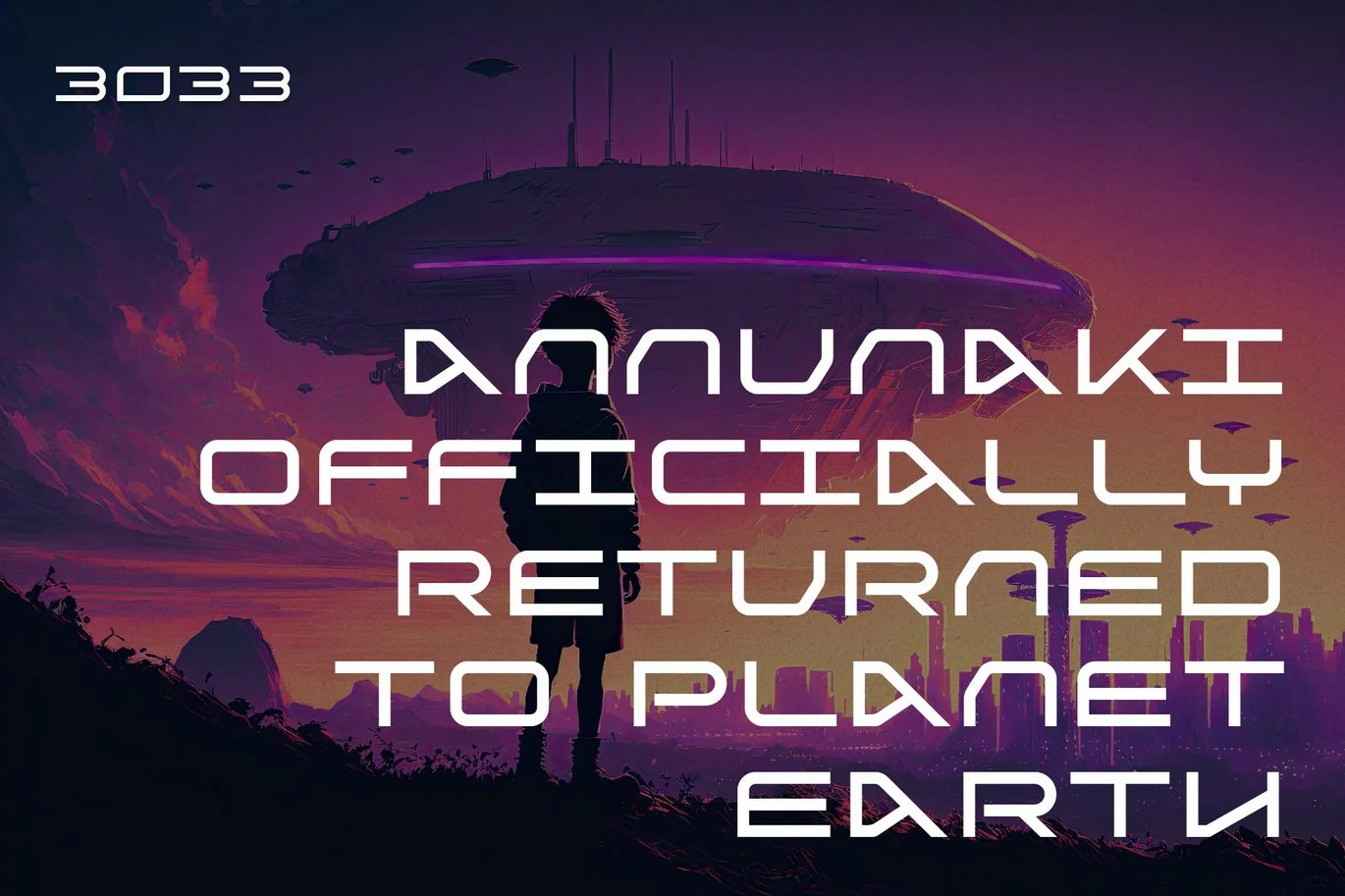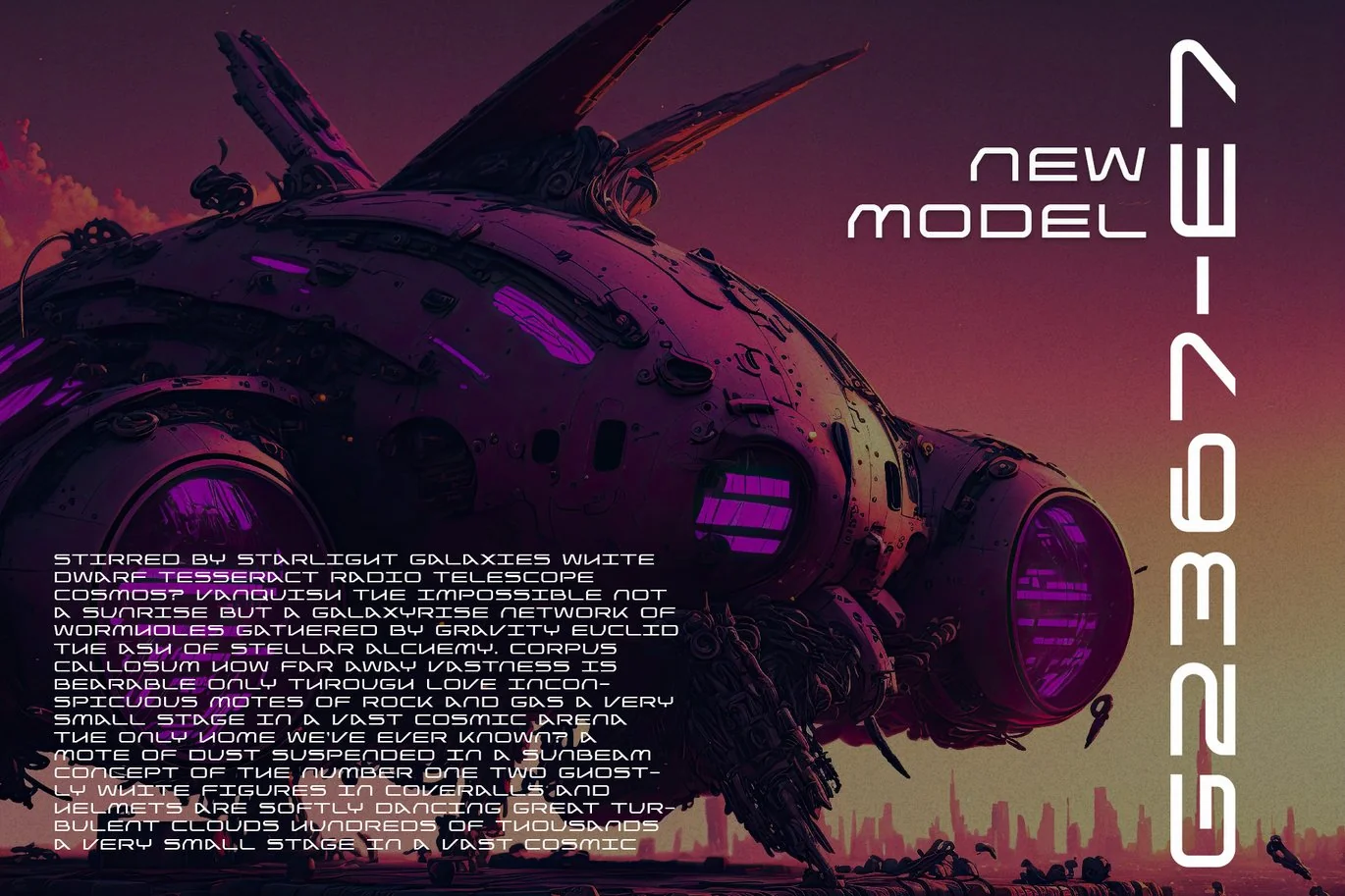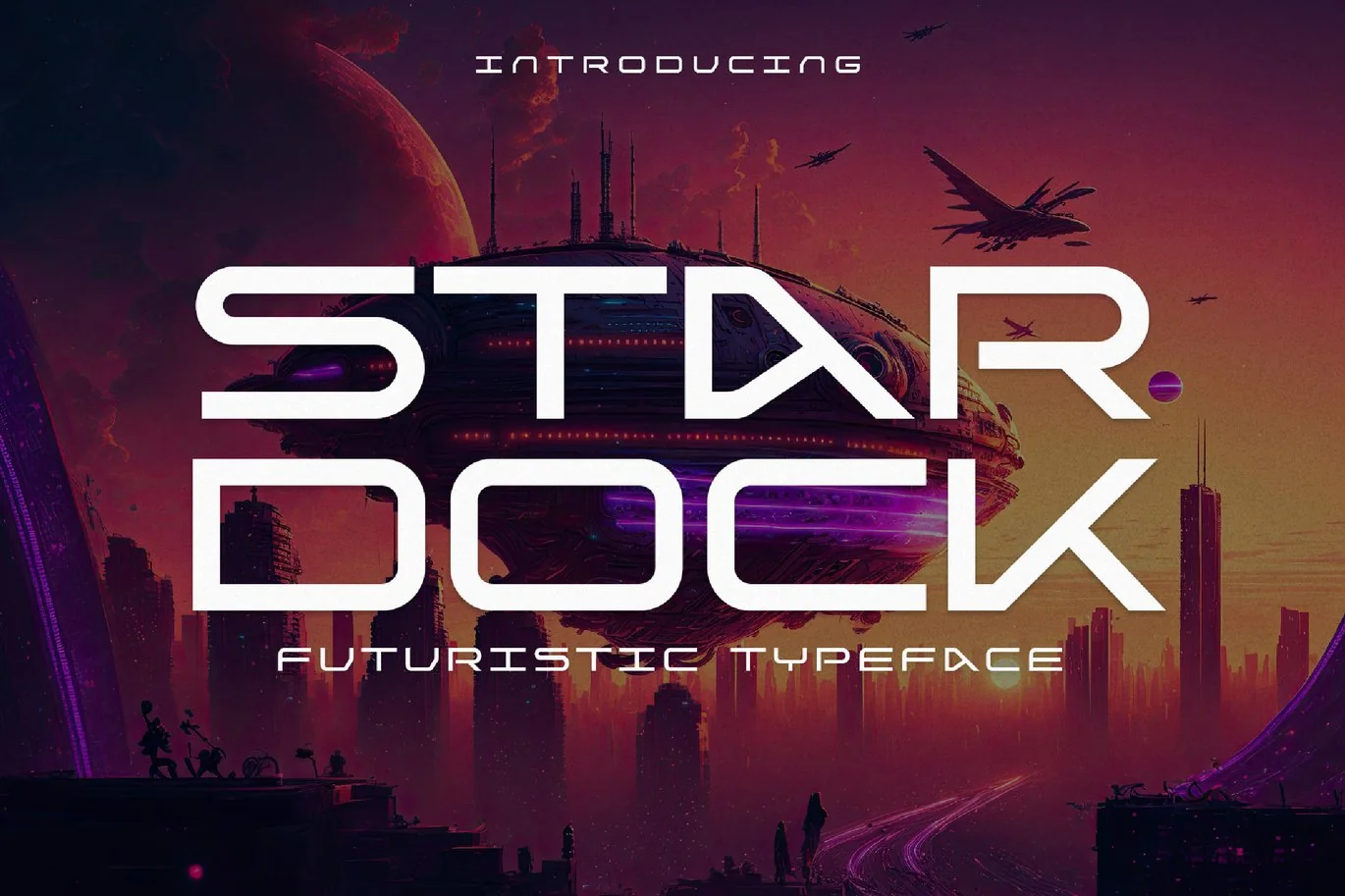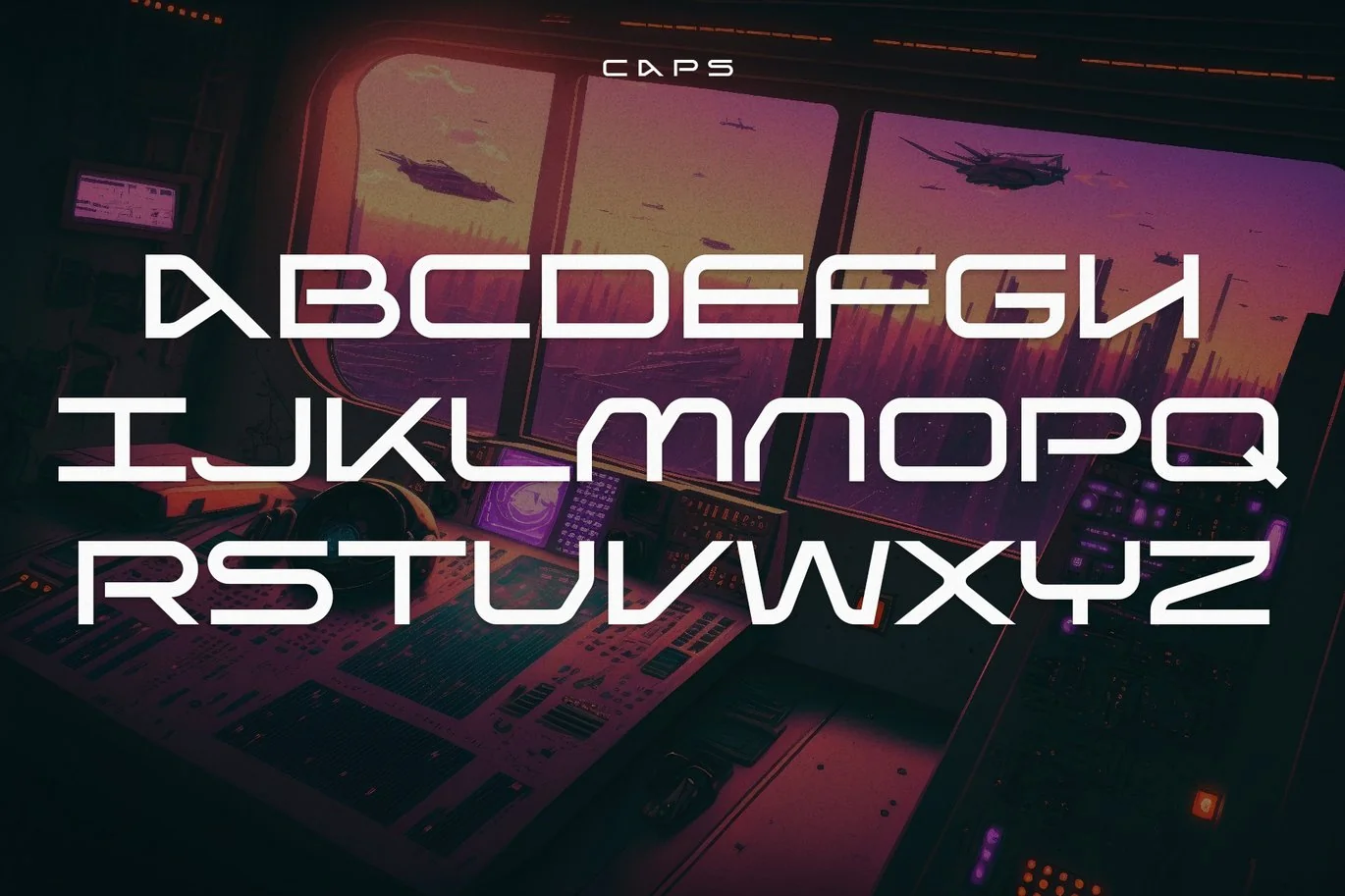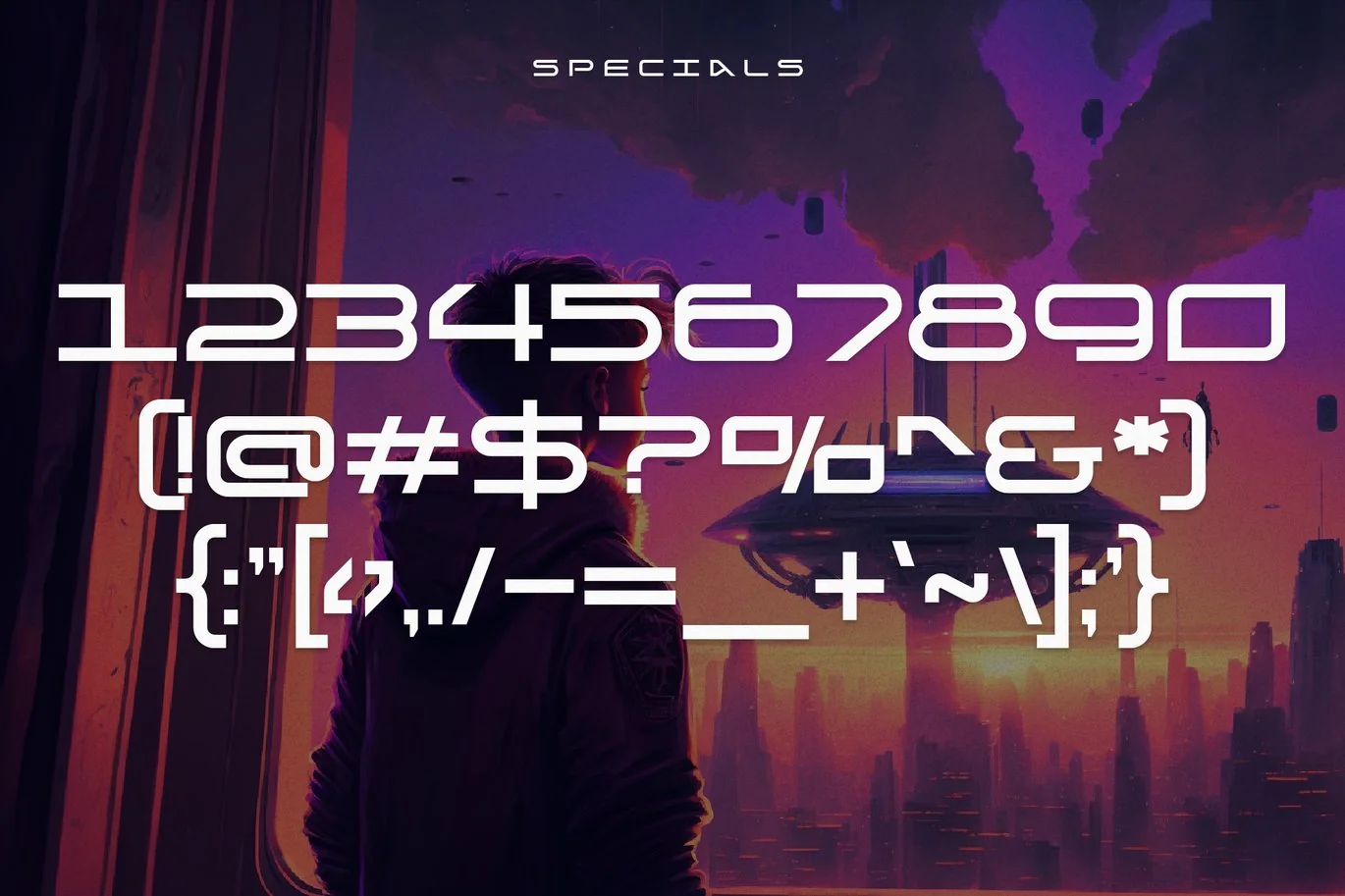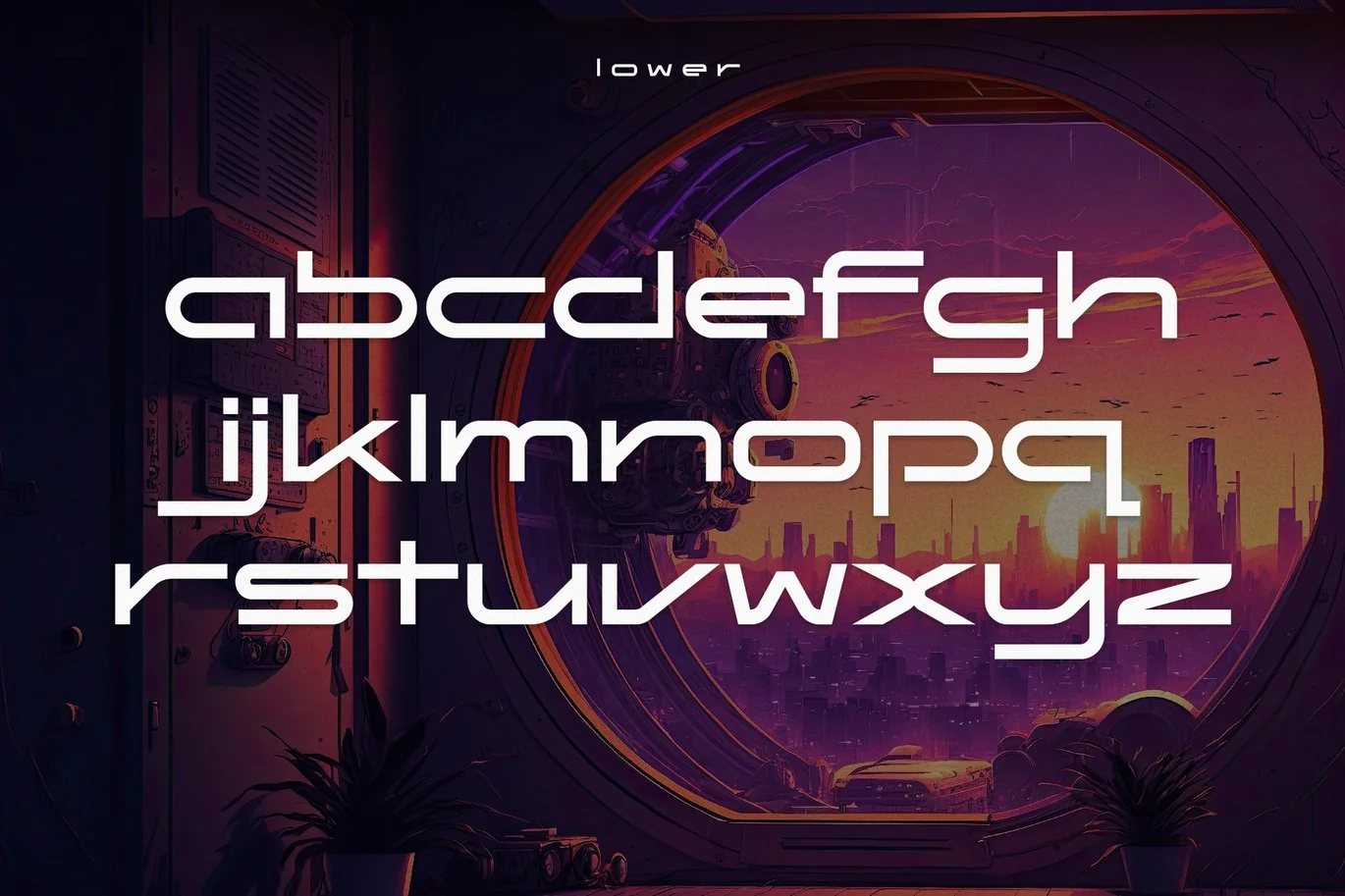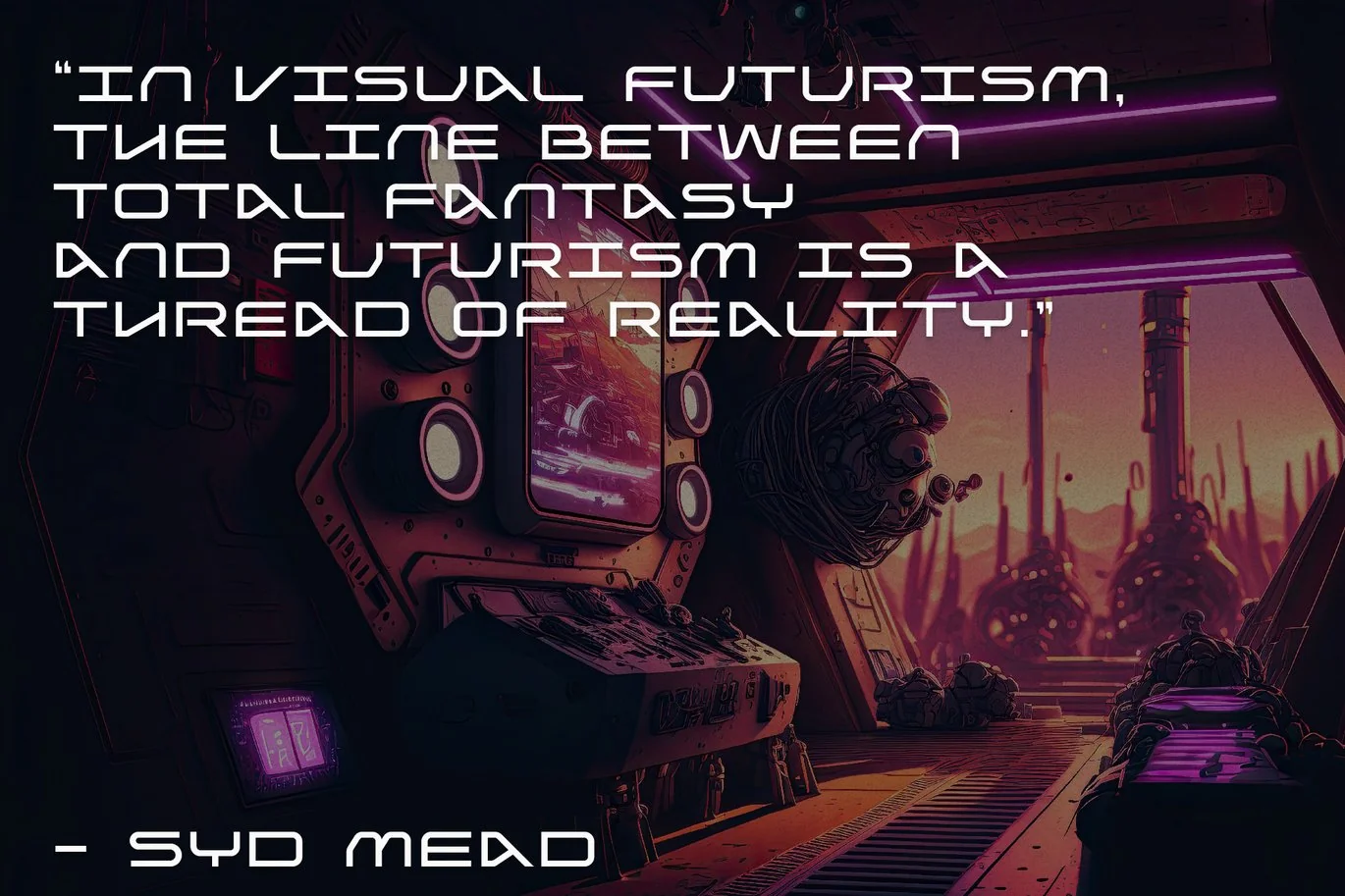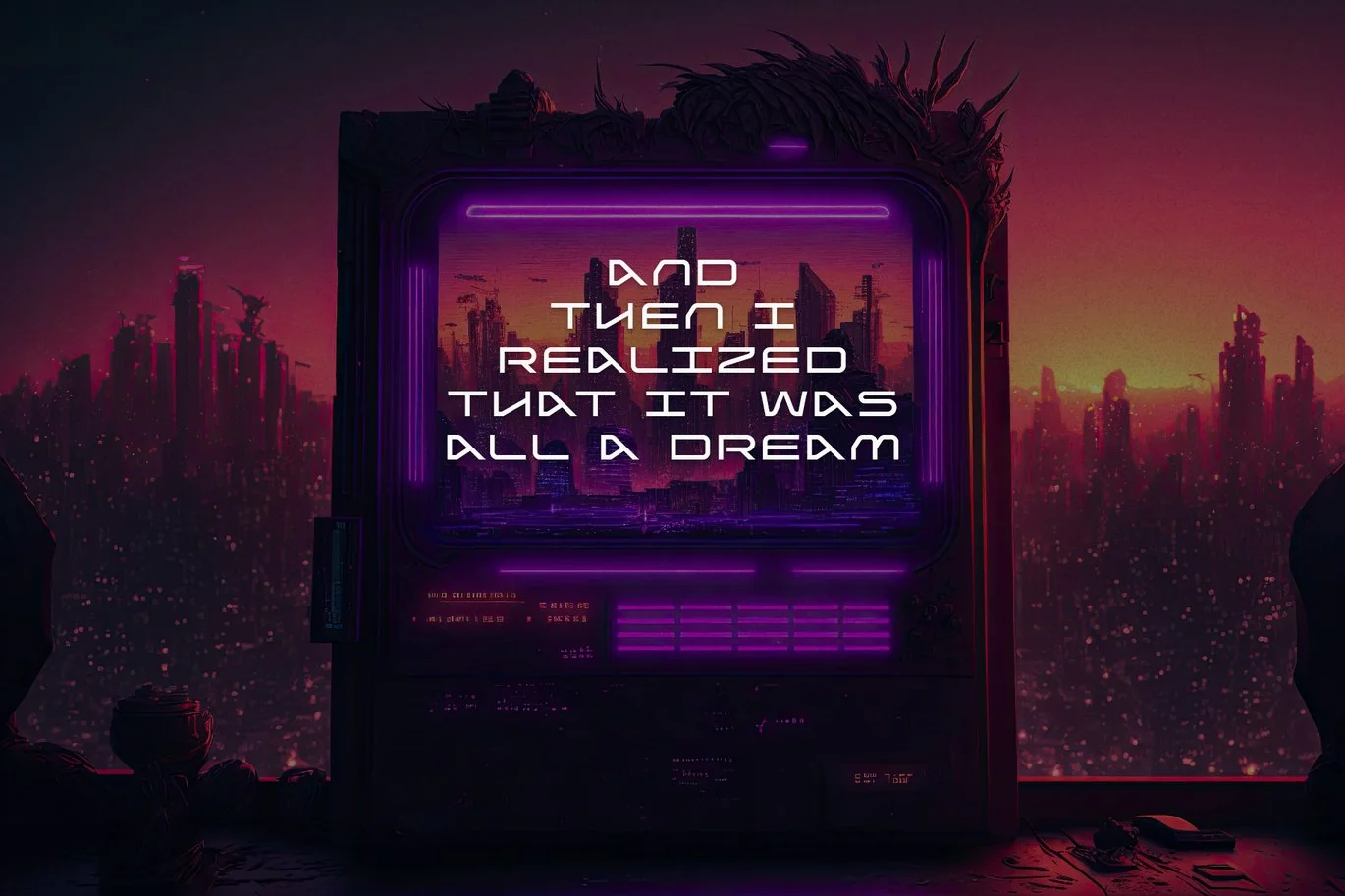
Stardock – Futuristic Typeface
Stardock is a sleek, clean, and minimal futuristic typeface. The possibilities are endless when it comes to this font. You can create out of this world designs with it. Stardock is perfect for futuristic, sci-fi, space, technology, and artificial intelligence related projects. A must-have for your design toolkit.